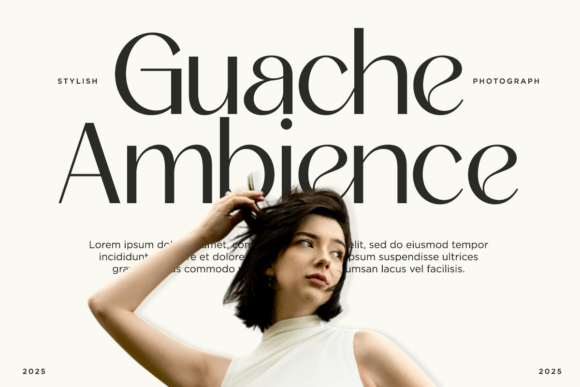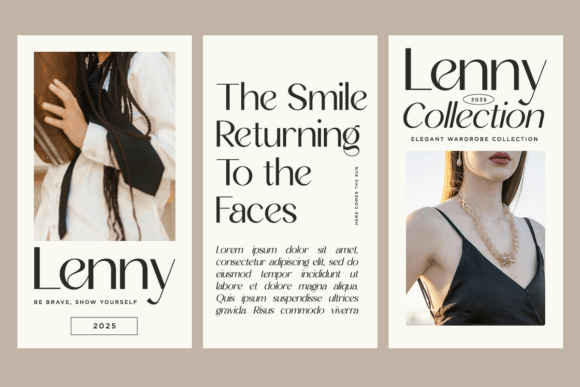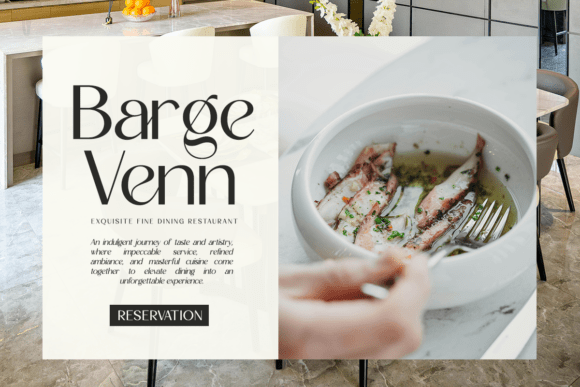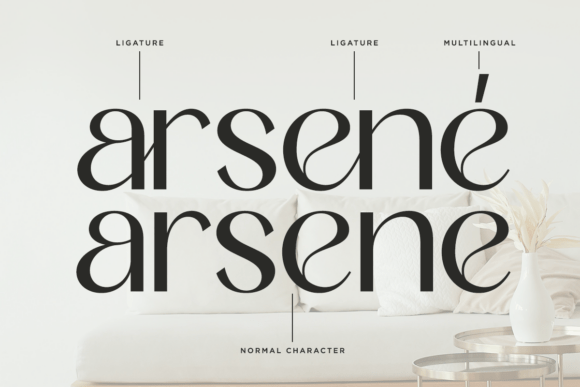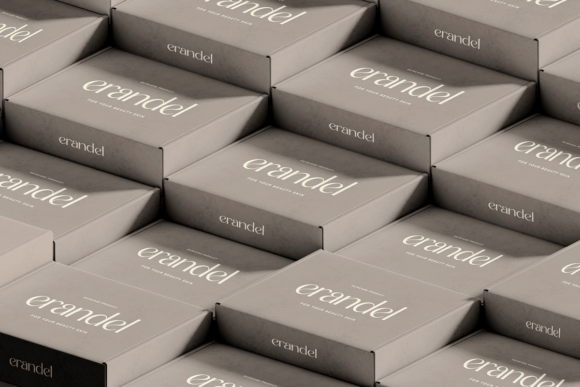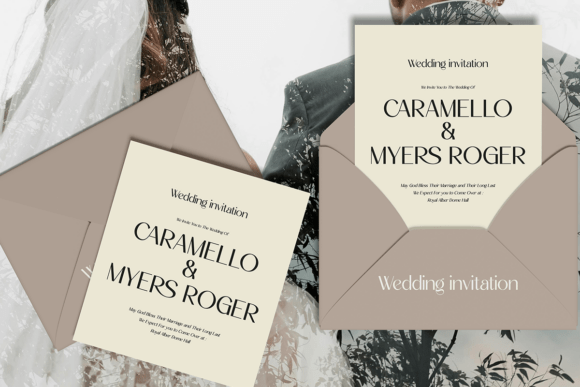
Introduction to Rekgiva Font Font
Fonts play a crucial role in design, and the Rekgiva Font font is a typeface that brings both character and versatility to any project. Whether you’re working on a branding project, a website, or a print design, the Rekgiva Font font offers a unique style that can elevate your work.
Rekgiva is a sophisticated and highly technical display font that balances minimalist geometry with fluid, artistic flourishes.
This elegant sans serif font features vertically elongated letterforms rendered with a high-contrast weight, pairing stable vertical stems with razor-thin horizontal curves The design is uniquely defined by its intricate, sweeping ligatures, providing a sense of rhythmic, hand-sculpted movement that remains professionally organized.
Key Features of Rekgiva Font Font
Why Choose Rekgiva Font Font?
The Rekgiva Font font is more than just a typeface – it’s a design tool that helps you communicate your message with style and clarity. Its unique character set and versatile design make it suitable for a wide range of applications, from elegant invitations to bold headlines.
With its carefully crafted letterforms and balanced proportions, the Rekgiva Font font ensures readability and visual appeal across all mediums.
What makes Rekgiva Font font special?
The Rekgiva Font font stands out with its unique design, exceptional readability, and versatility across various design applications.